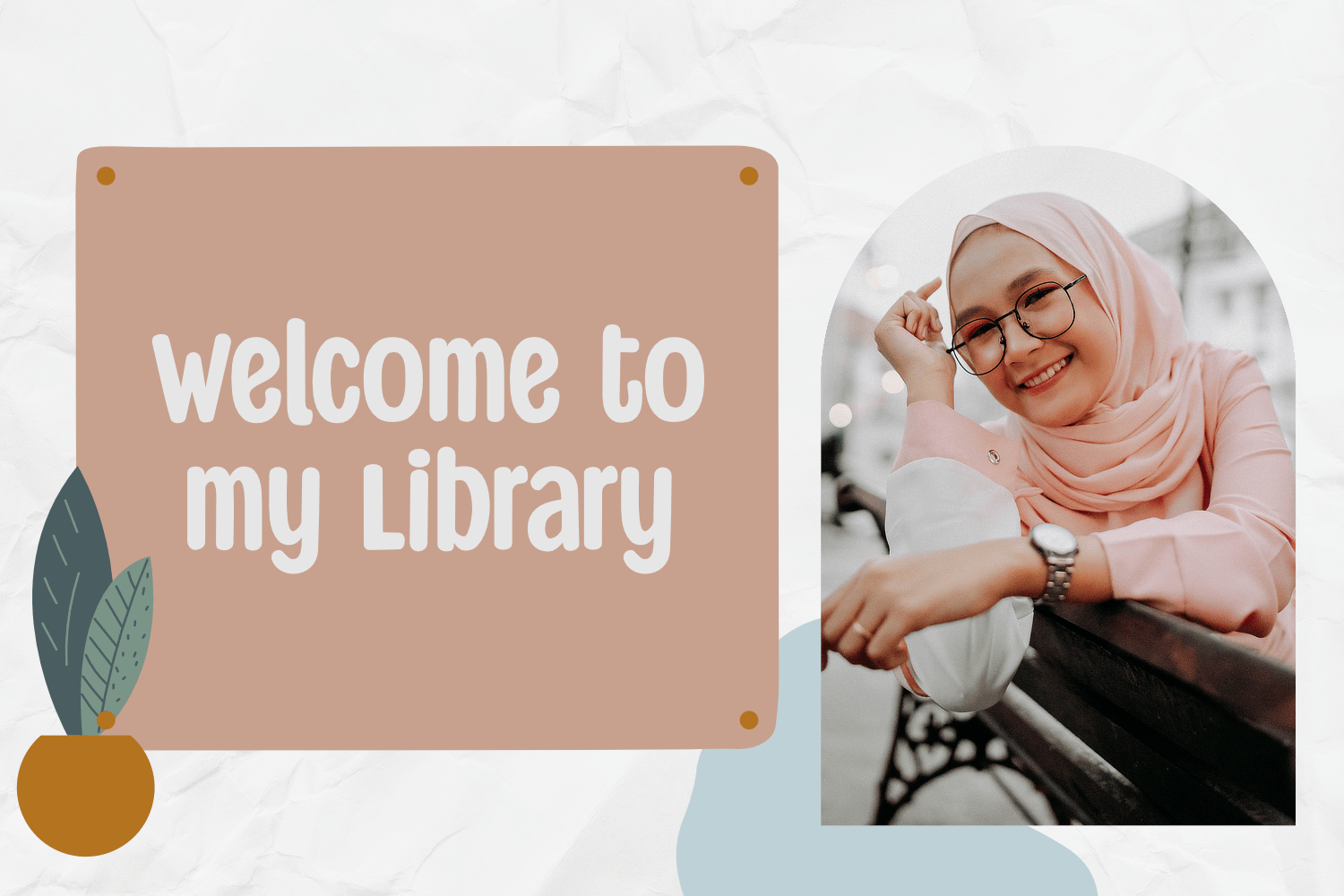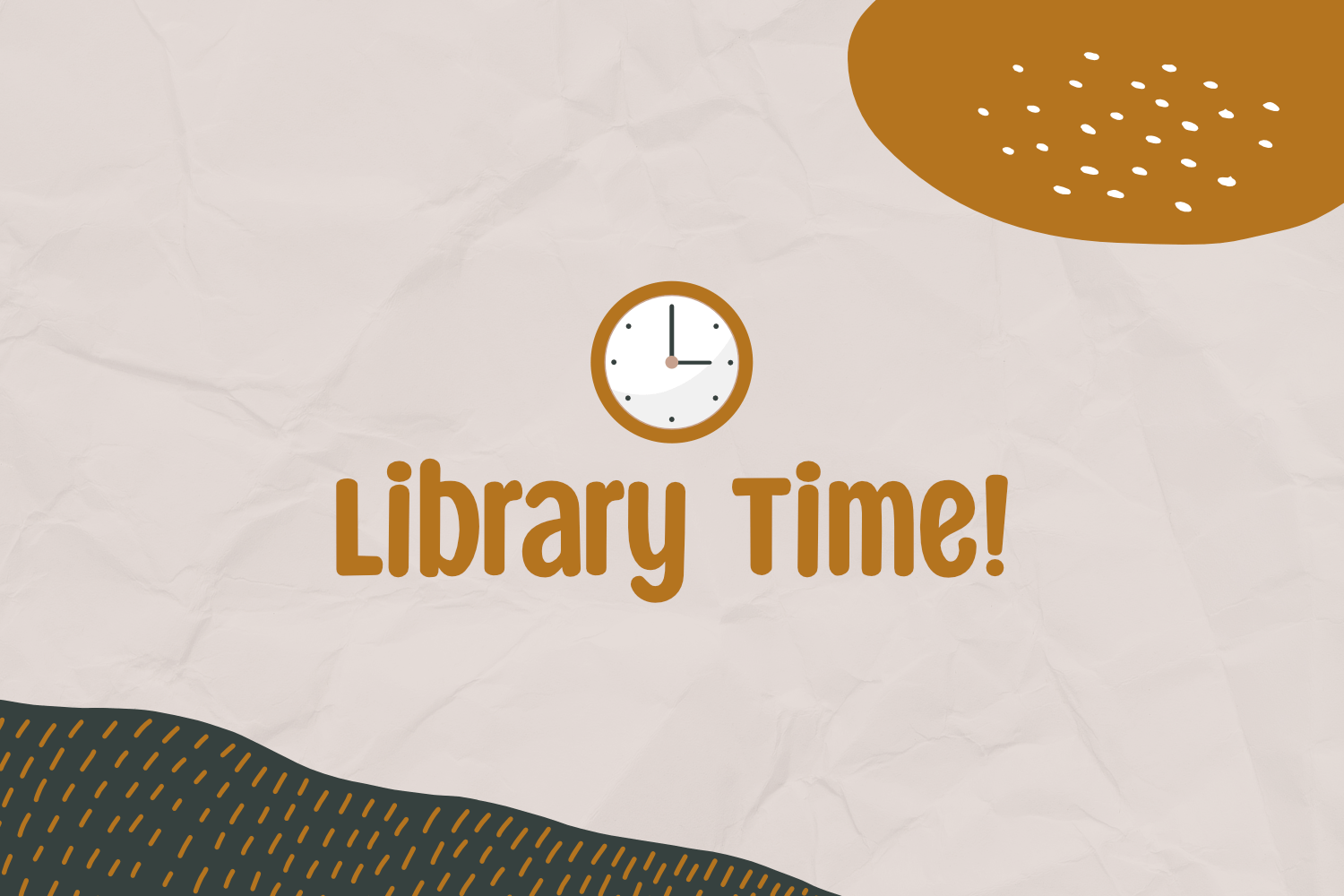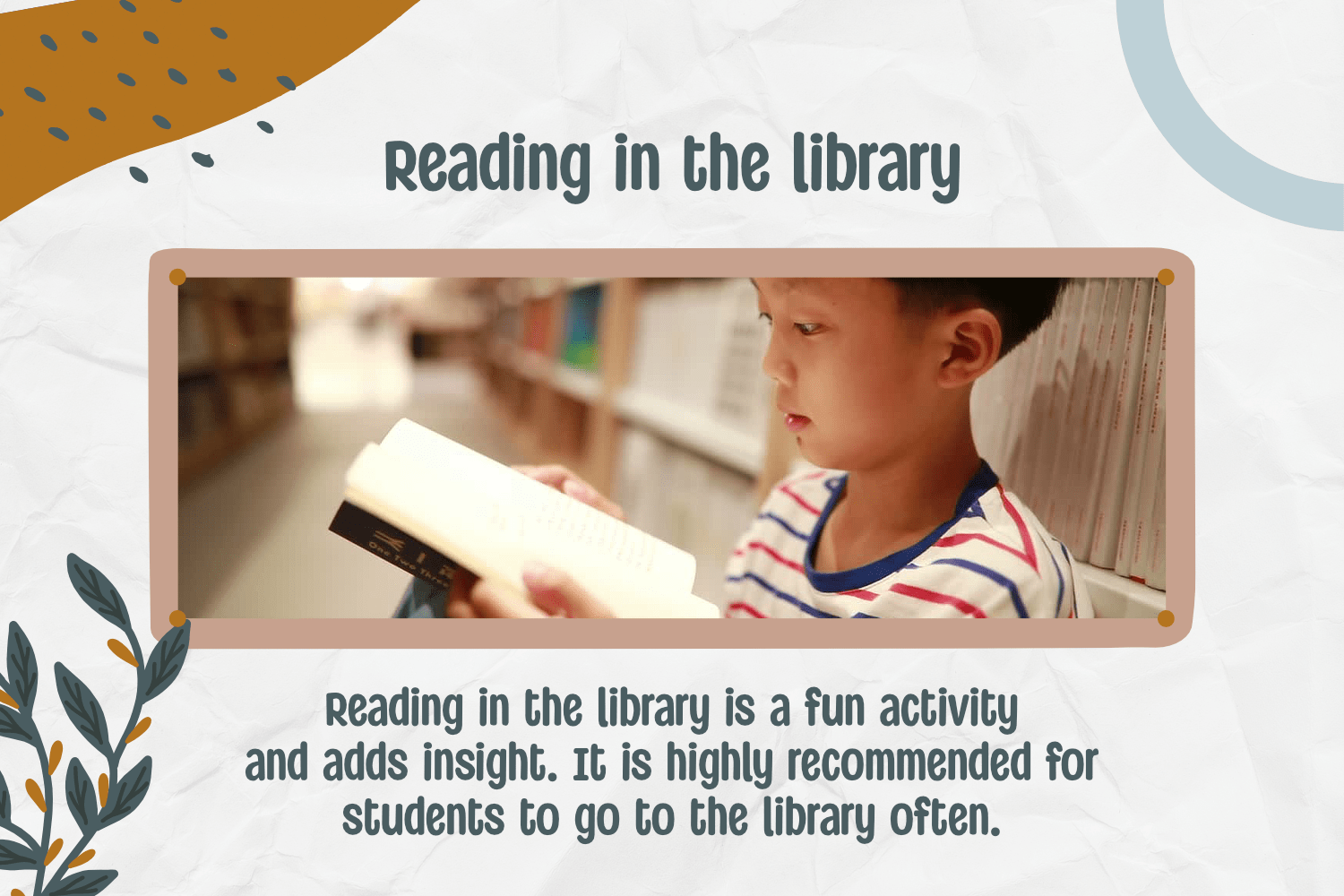
Library Records Display Font
This font is a casual and friendly handwritten font. Whatever the topic, this font will be a wonderful asset to your font library, as it has the potential to enhance any creation.